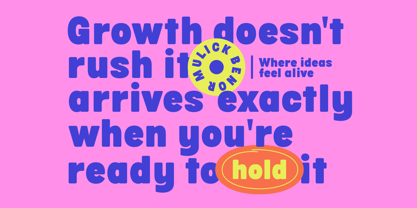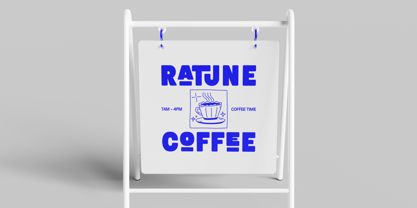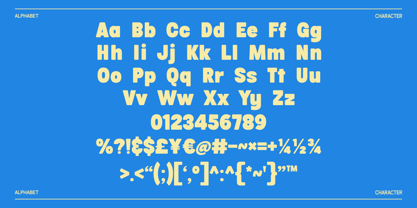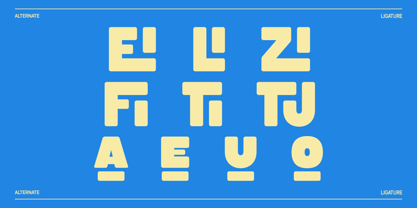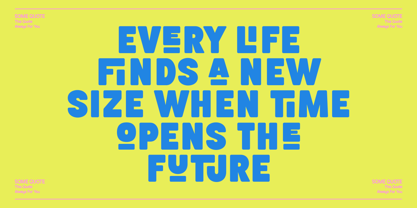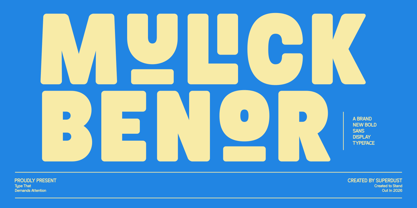
Mulick Benor
por Super Dust
La familia tipográfica Mulick Benor fue diseñada por Tri Iriyanto Wibowo y publicada por Super Dust. Mulick Benor contiene 1 estilos. Más información sobre esta familia
Mulick Benor is a modern, bold sans serif typeface that combines strength, simplicity, and contemporary style. Designed with clean lines, balanced proportions, and bold letterforms, it creates a confident visual presence while maintaining excellent readability. Its minimalist design makes every word feel clear, professional, and impactful.
With its bold yet refined character, Mulick Benor is perfect for creating eye-catching headlines, memorable logos, and modern brand identities. The font delivers a strong personality without sacrificing versatility, making it equally effective across both print and digital media.
Mulick Benor is ideal for branding, logos, posters, packaging, editorial layouts, social media graphics, website headers, advertising, presentations, and creative marketing materials. Whether you're building a modern business identity or a bold visual campaign, this typeface brings clarity, confidence, and a timeless contemporary look to every design.
Diseñadores: Tri Iriyanto Wibowo
Fundición: Super Dust